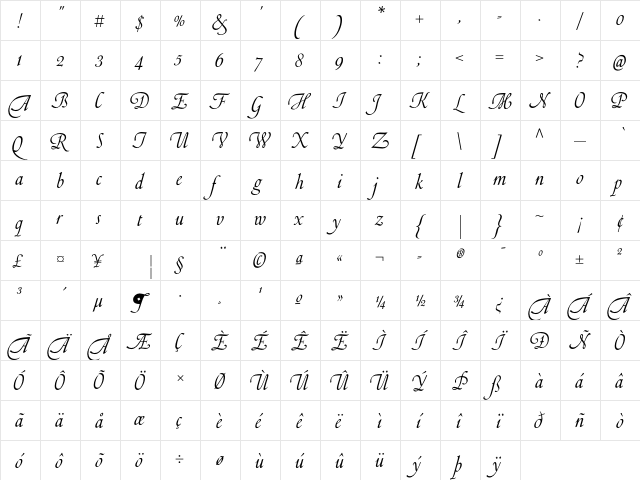
LTC Artscript Pro Regular
| Foundry | Lanston Type Co.- P22 type foundry |
| Designer | Sol Hess, Paul Hunt |
Design Context for LTC Artscript Pro Typeface
LTC Artscript Pro flows with the natural rhythm of handwritten lettering, making it ideal for designs that call for warmth and personal expression.
Font Pairing: Combine LTC Artscript Pro with a simple geometric sans for maximum contrast — the tension between flowing curves and clean structure is a classic typographic pairing.
Pro Tip: Use LTC Artscript Pro for short runs of text — names, titles, or taglines. Extended body copy in script faces tires the eye quickly.